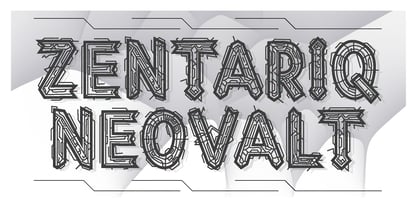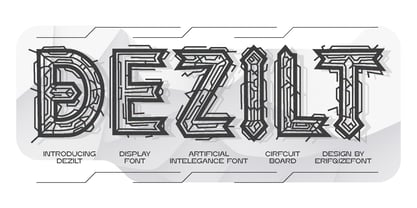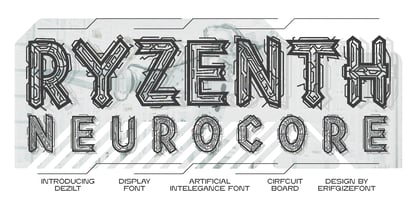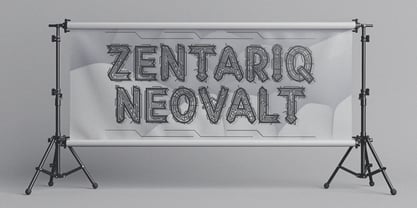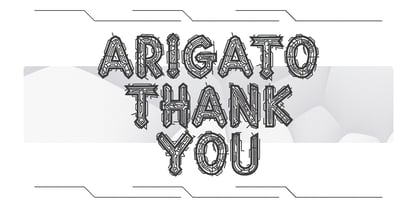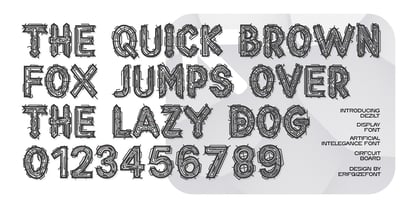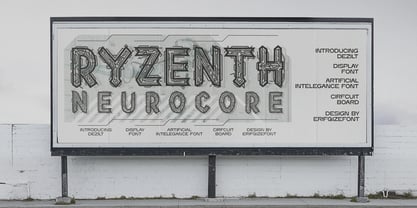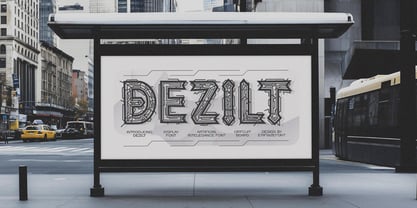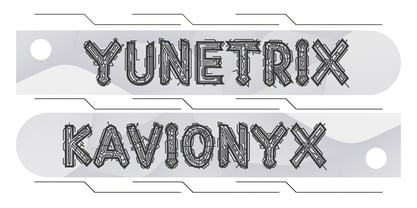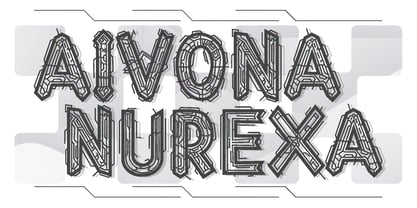
Dezilt
by Erifqizefont
The Dezilt Font Family was designed by Eka Rifqi Setiawan and published by Erifqizefont. Dezilt contains 1 styles.
Introducing DEZILT — A Futuristic Display Font Inspired by Circuitry and AI
DEZILT is a bold and experimental display font that draws inspiration from artificial intelligence, circuit board patterns, and cybernetic aesthetics. Each letter is intricately designed with sharp mechanical strokes, layered outlines, and detailed inner linework that mimics the complexity of electronic systems.
Perfect for projects that demand attention and futuristic flair, DEZILT shines in sci-fi posters, tech event branding, game UI designs, EDM or synthwave album covers, and AI-themed visuals. It’s more than just a font — it’s a digital experience.
Key Features:
• Futuristic circuit-inspired style
• Bold and high-contrast linework
• Ideal for logos, titles, and tech-themed designs
• Best used in large sizes for maximum impact
Let DEZILT electrify your next design with a powerful, high-tech presence.
Designers: Eka Rifqi Setiawan
Publisher: Erifqizefont
Foundry: Erifqizefont
Design Owner: Erifqizefont
Introducing Erifqizefont, a Foundry led by Eka Rifqi Setiawan. Originating from Eka's experience as an Icon Designer, Erifqizefont specializes in bold, symmetrical Display Fonts with futuristic elements, occasionally exploring retro and whimsical styles. Based in Indonesia, Erifqizefont integrates the nation's cultural heritage into its designs. As a sole proprietor, Eka focuses on crafting superior, unique fonts, setting Erifqizefont apart in the industry.